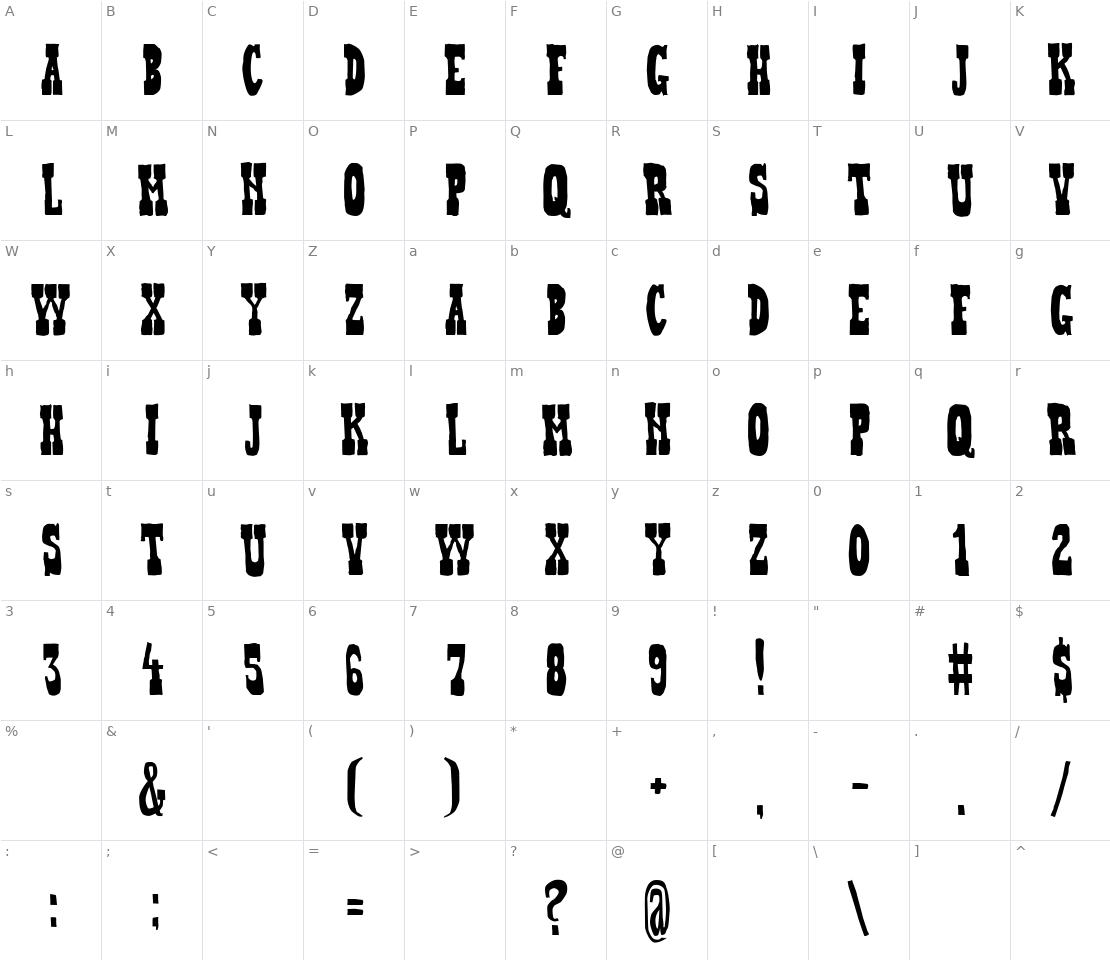
Heffer
Heffer is a bold, condensed display face from Tension Type with heavy, tightly packed letterforms rooted in Old West poster lettering. The rustic character comes through in its chunky proportions and vintage weight, giving it the worn-in confidence of a saloon sign or rodeo flyer. Best at large sizes for headlines, posters, and branding that needs to feel rugged and unapologetically loud.